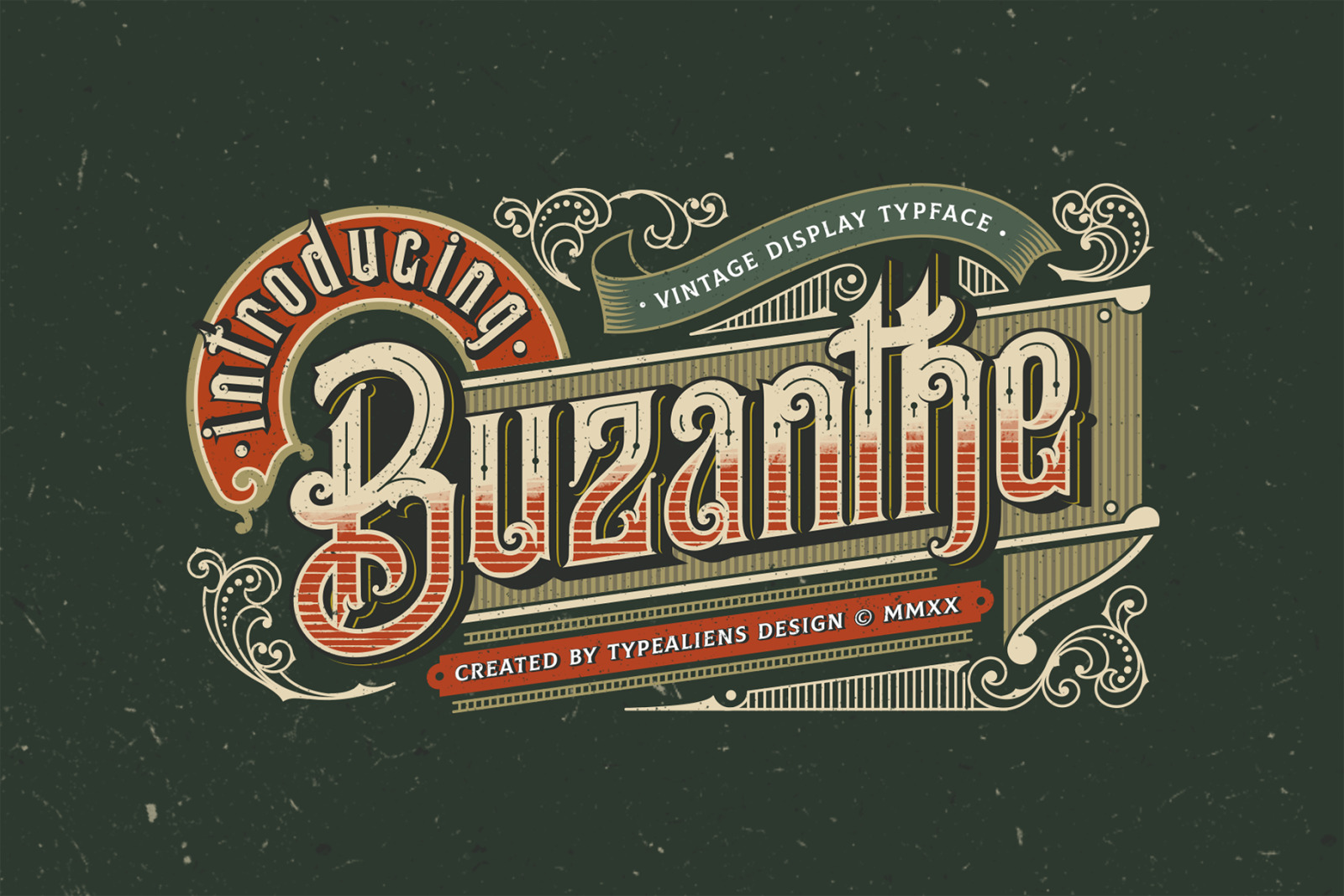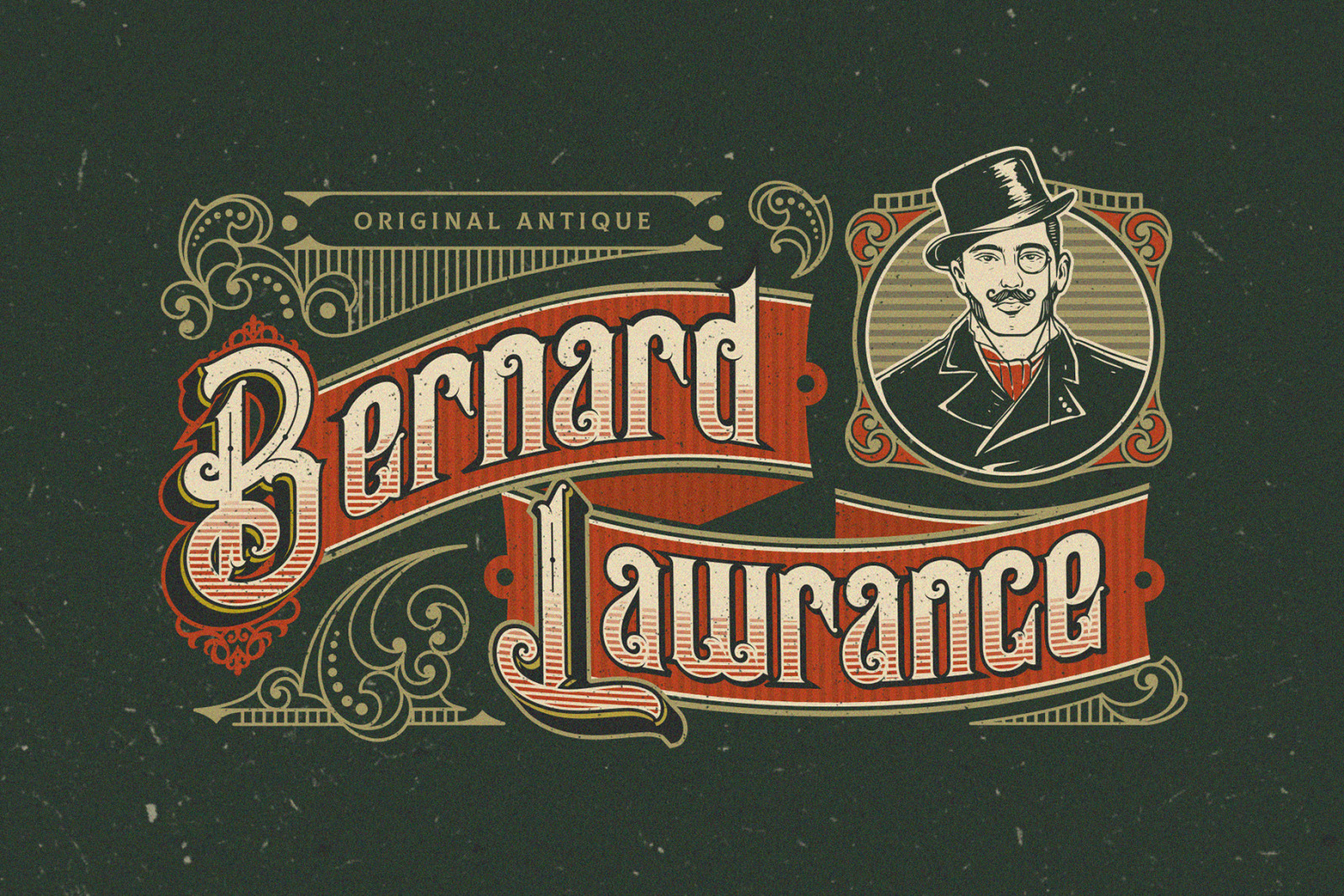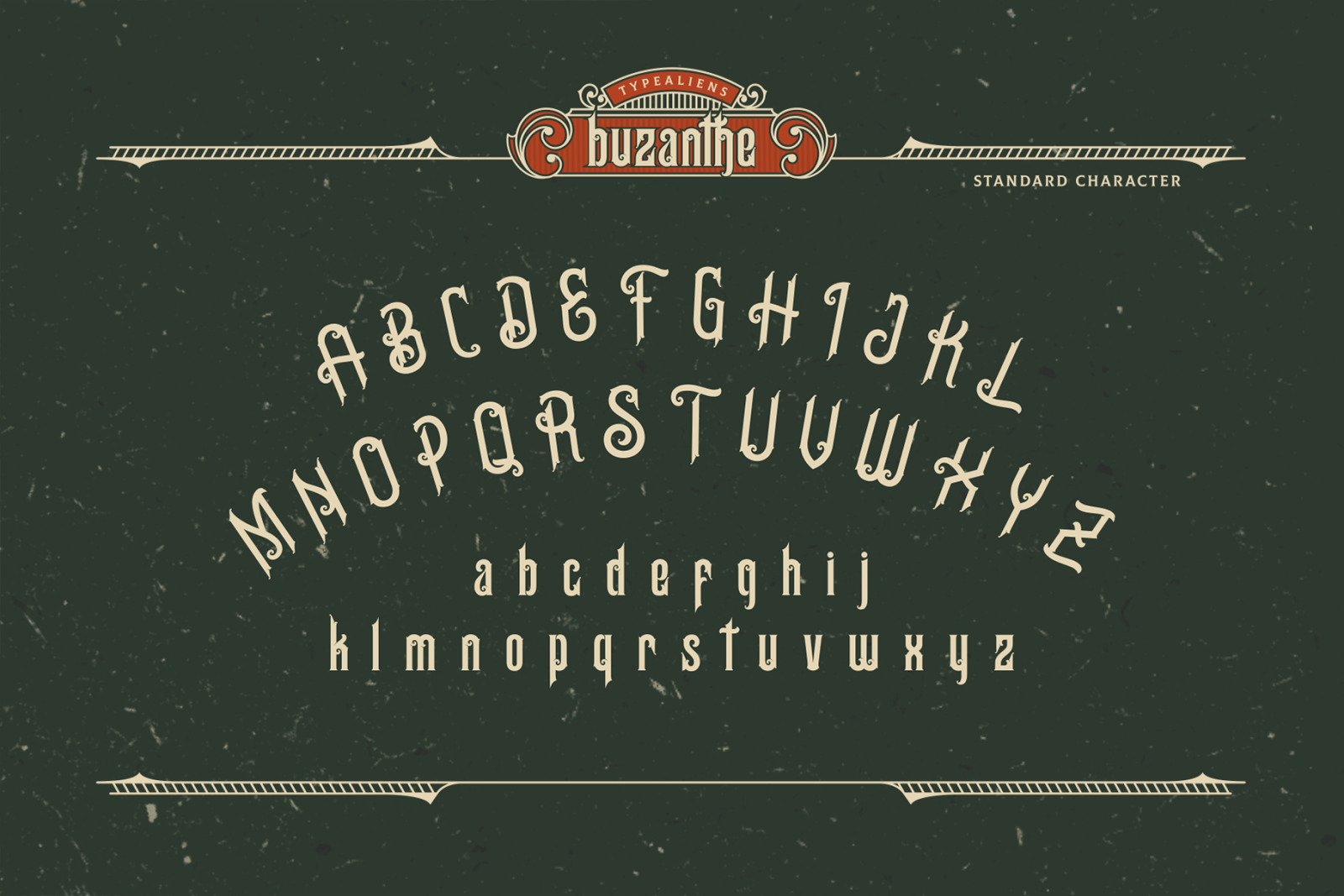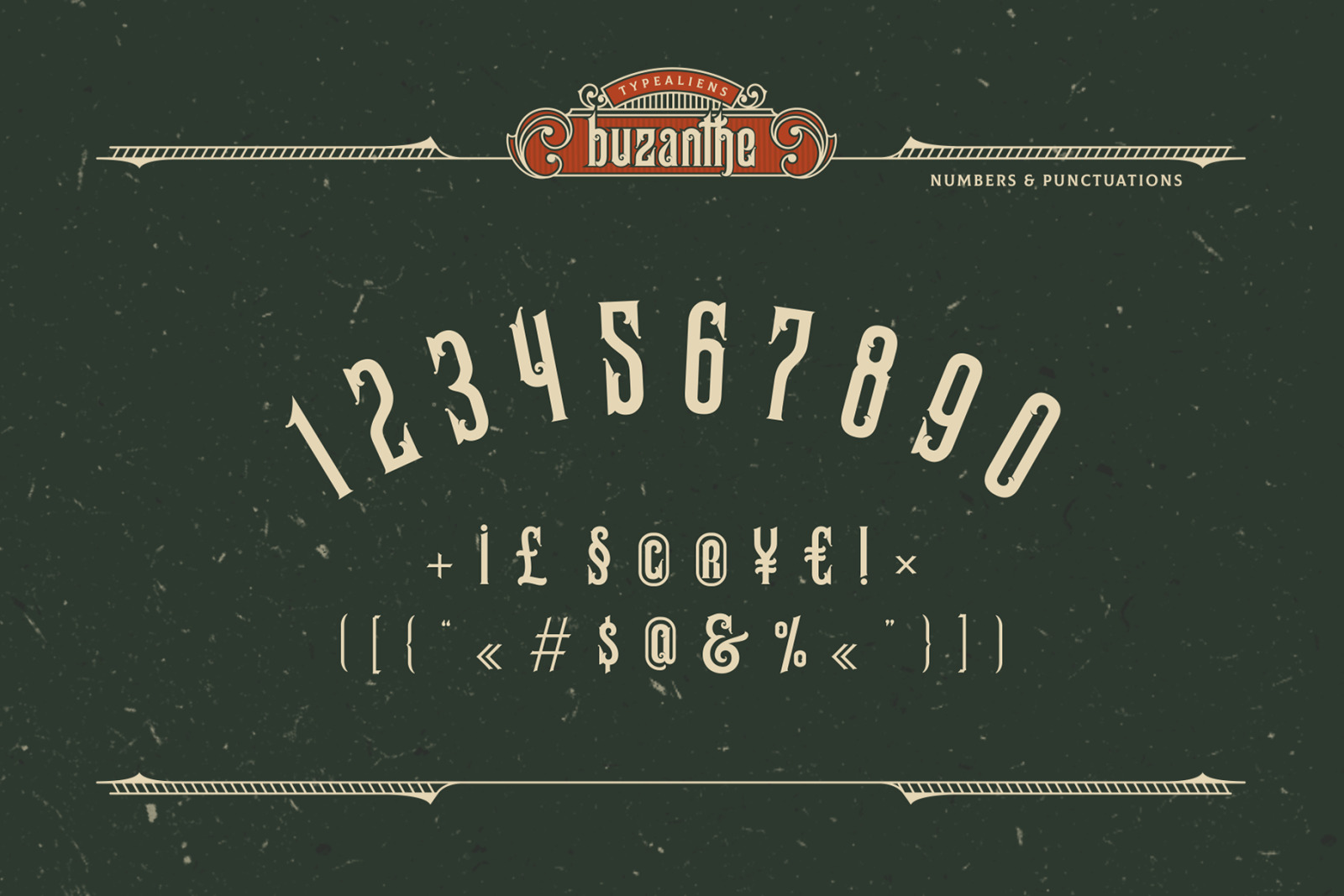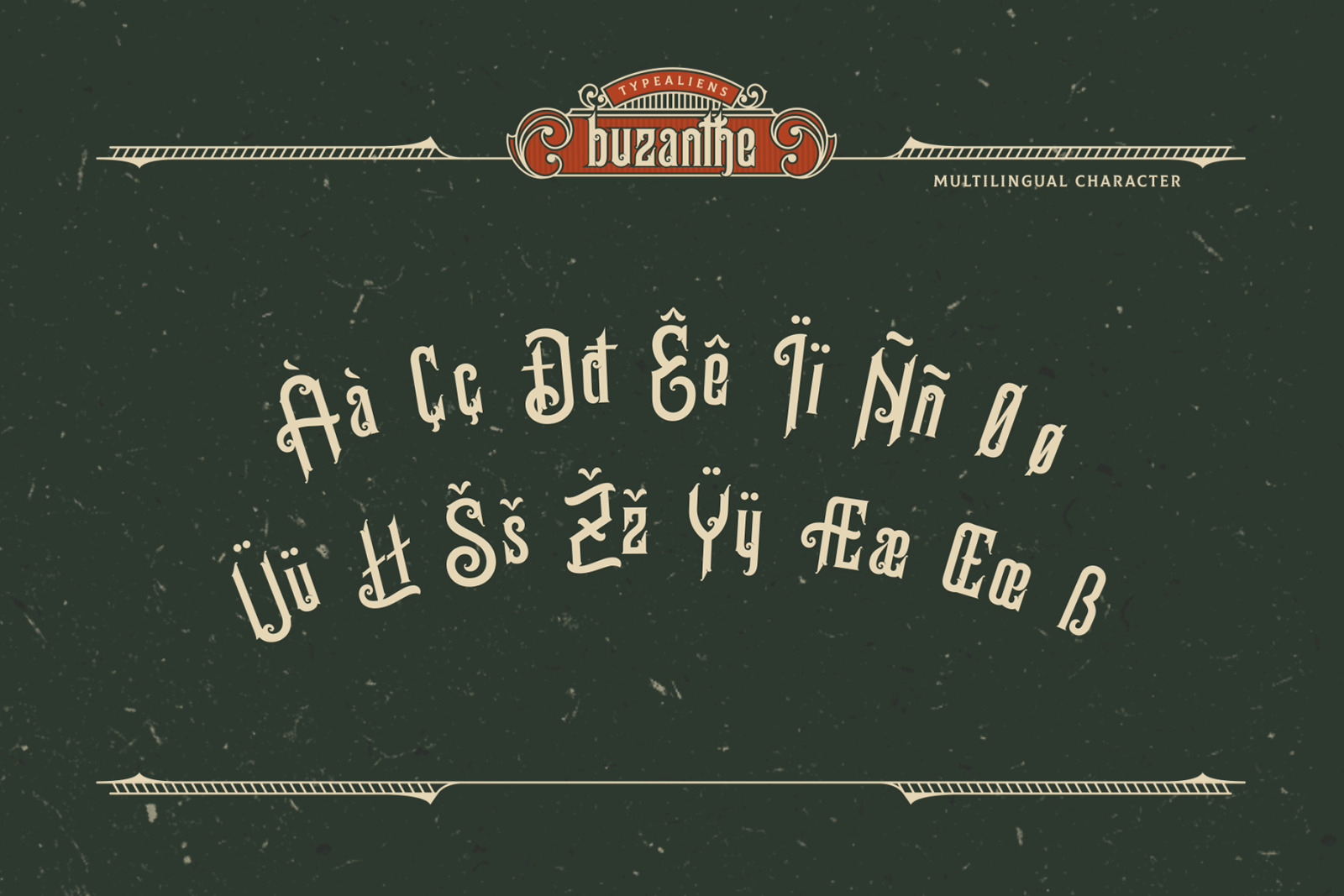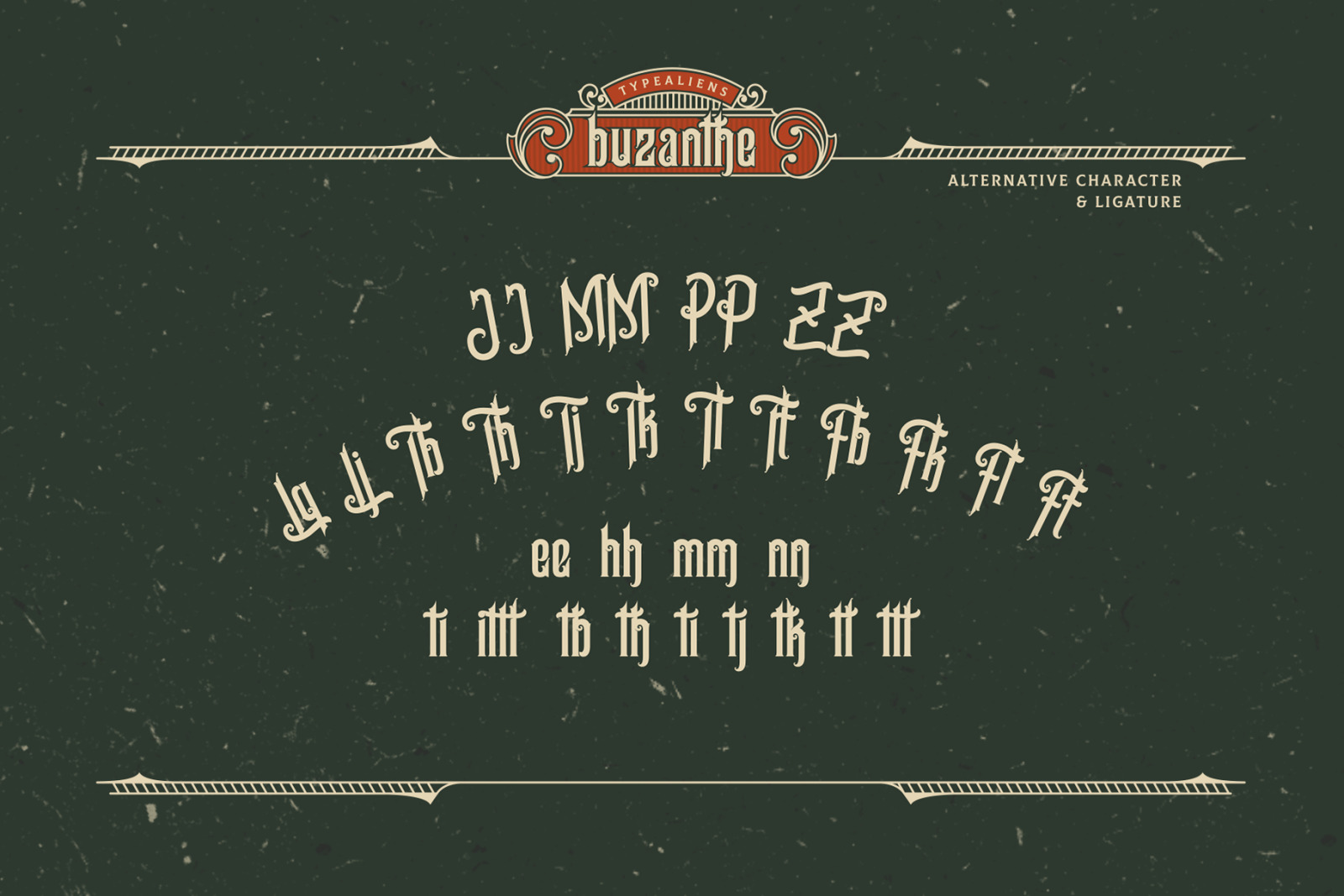
Buzanthe Font
BUZANTHE is a vintage font based on serif fonts, with a few modifications and ornaments so that this font becomes a unique and beautiful display font. You can combine this font with classic badges, illustrations etc.
In addition to the font pack there are also extra bonus illustrations and classic badges. This font is suitable for logo design, label design and other designs of course with classic or vintage styles.